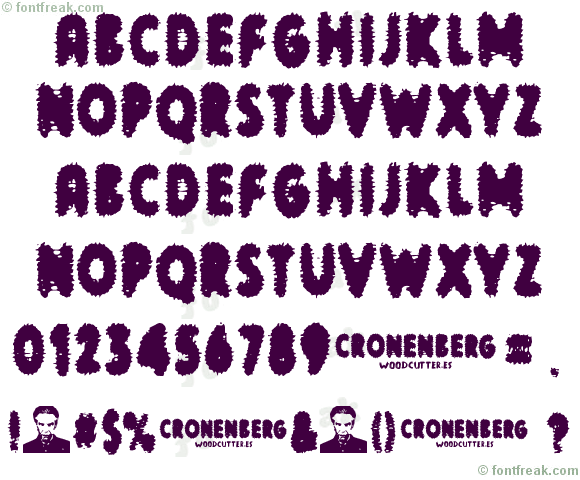
cronenberg
About cronenberg
The Cronenberg font by Woodcutter Manero is a distinctive display typeface that captures attention with its unique aesthetic. This decorative font features an organic, somewhat grotesque style that is characterized by its irregular, dripping forms and uneven edges. The stroke weight varies throughout the characters, creating a dynamic contrast that adds to its visual intrigue. The spacing is intentionally tight, ensuring that the font maintains a bold presence while still being legible in larger formats.
Best suited for creative projects that require a touch of the unconventional, the Cronenberg font excels in various applications. It can be a striking choice for movie posters, particularly in horror or thriller genres, where its distinctive style can evoke a sense of unease or drama. Additionally, it would work well in branding for artisanal food products or craft breweries, where a handmade feel is desired. Wedding invitations could also benefit from its quirky charm, especially for couples looking to convey a fun and eclectic vibe. Other suitable uses include merchandise designs and graphic novels, where its expressive character can enhance storytelling.
The target audience for the Cronenberg font includes graphic designers, small business owners, and content creators seeking to make a bold statement with their typography. Whether you are crafting a unique logo or designing eye-catching promotional materials, this font provides a memorable impact.
In conclusion, the Cronenberg font stands out for its originality and artistic flair, making it a valuable addition to any designer’s toolkit. With a cronenerg font free download option available, it offers both accessibility and versatility for those looking to infuse their projects with a sense of personality and creativity.